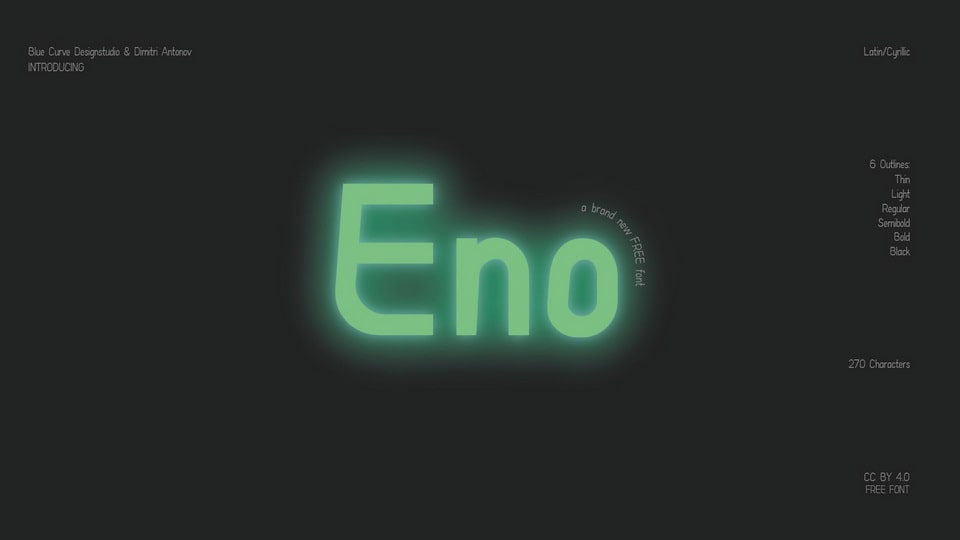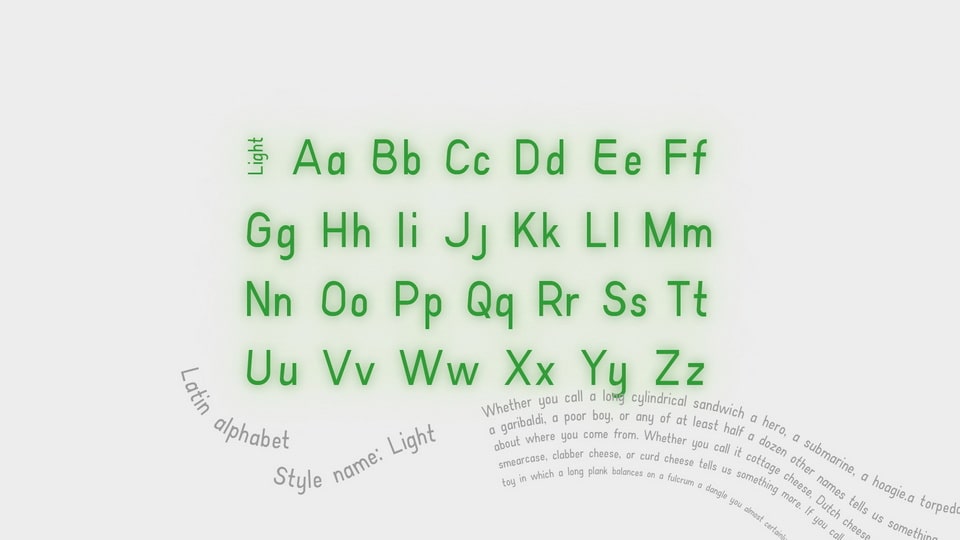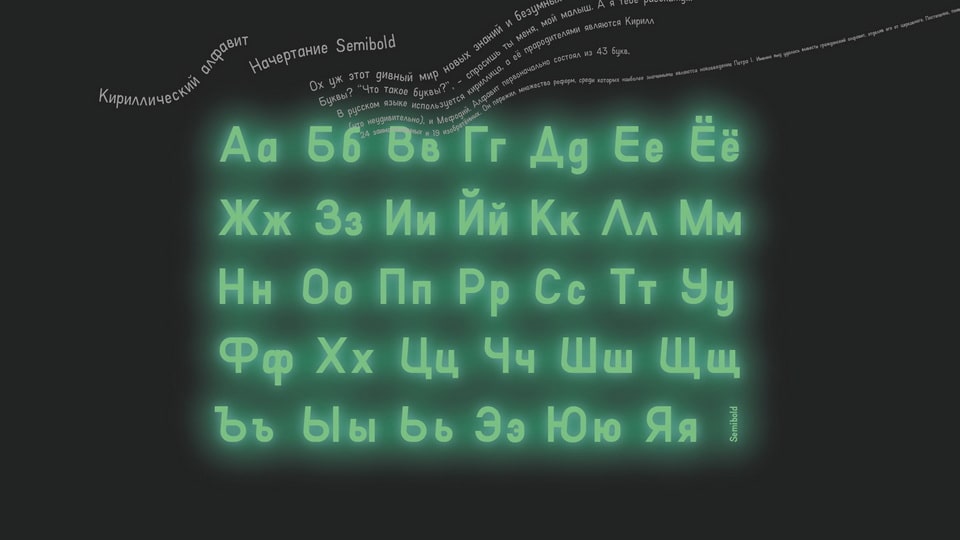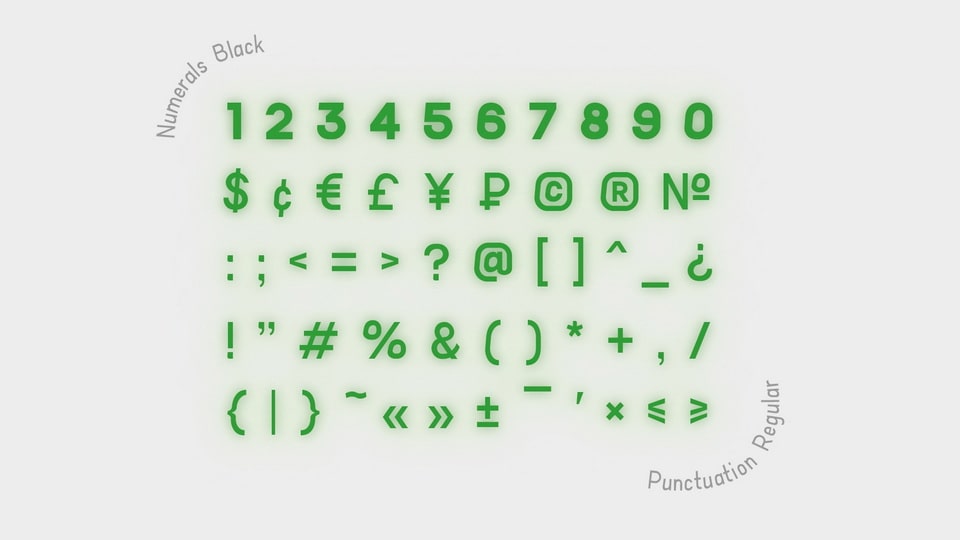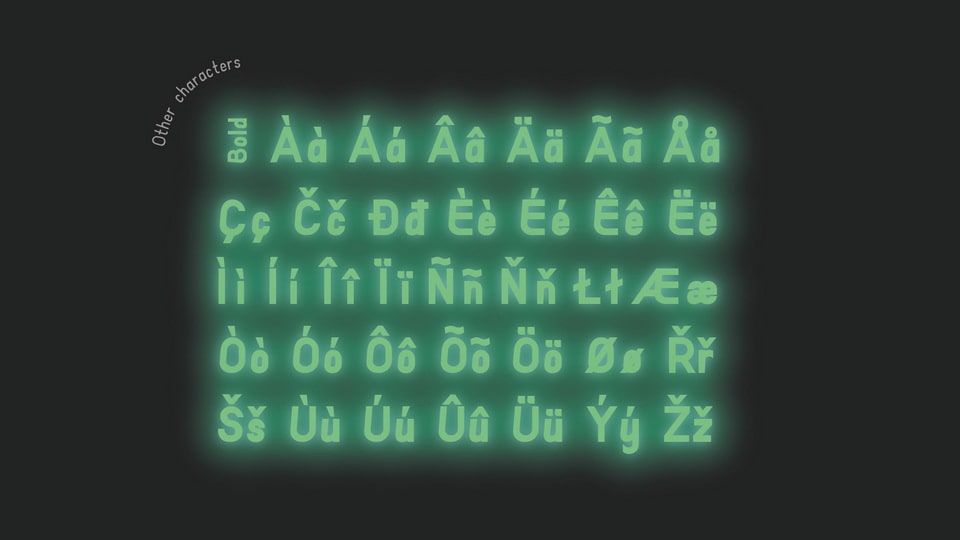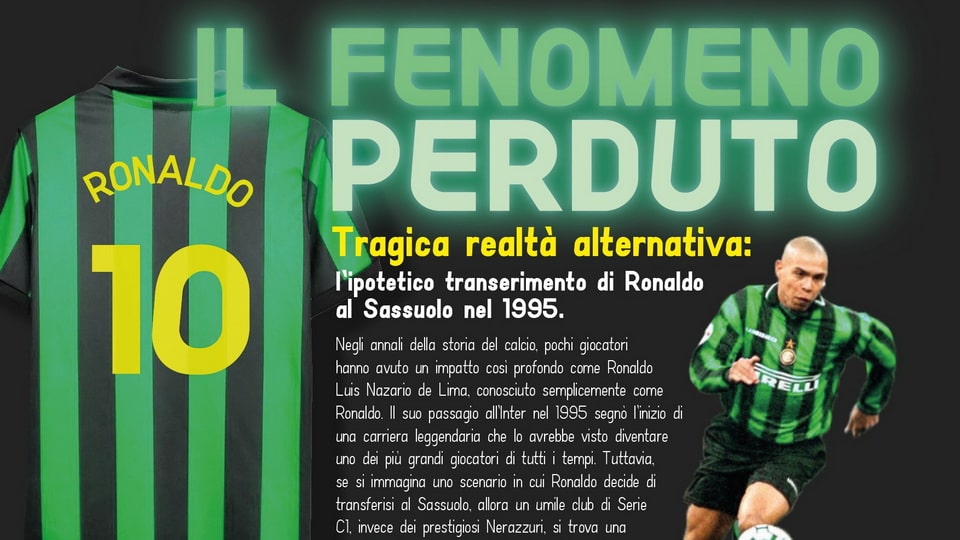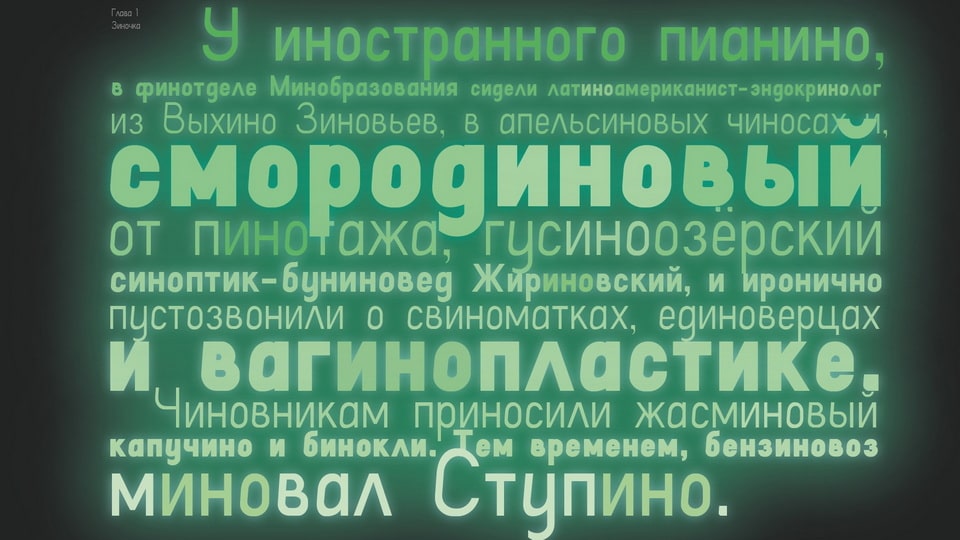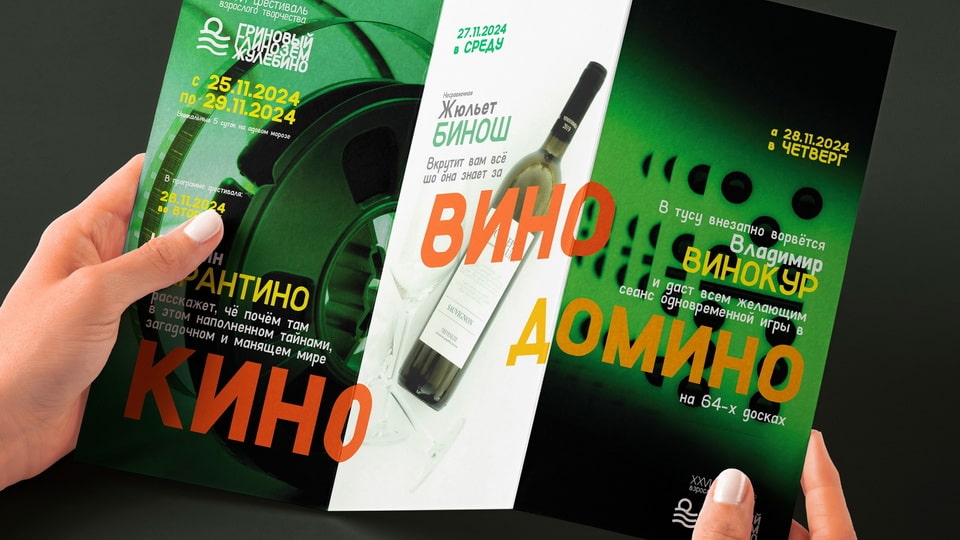
Eno is a cute and quirky sans-serif typeface that brings an irresistible touch of playfulness to any design. With soft edges and slightly irregular forms, each letter has its own unique personality, adding a whimsical, friendly feel to the font. The clean, sans-serif structure makes it versatile and easy to read while maintaining a sense of fun and charm, perfect for children’s books, friendly branding, or any project that needs a little cheer. Eno’s quirky design elements create a warm, inviting vibe that draws readers in.
Ideal for logos, packaging, and social media graphics, Eno is the font that makes every word feel happy and approachable.